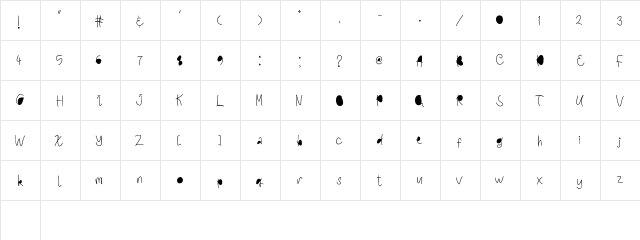
Cherryting Regular
| Designer | Armyands |
Cherryting is a composed and adaptable typeface that performs quietly and consistently across a wide range of design contexts.